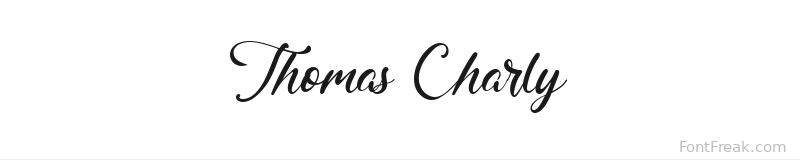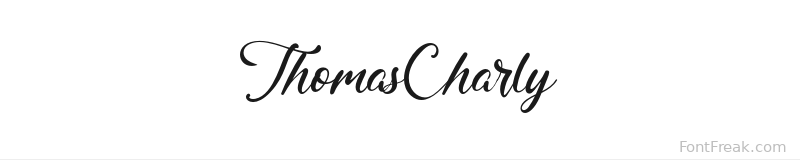
ThomasCharly
Thomas Charly
About ThomasCharly
The ThomasCharly font by Kong Font is a stunning script typeface that exudes elegance and sophistication. Released in 2021, this font showcases delicate, flowing lines that create a sense of movement and grace. The letters are characterized by a medium stroke weight, offering a beautiful balance between boldness and subtlety. The contrast in the curves and straight lines adds a dynamic quality, making each character visually appealing. The spacing is well-considered, ensuring readability while maintaining a stylish flair, perfect for any creative project.
This versatile font finds its best applications in a variety of contexts. It is particularly well-suited for wedding invitations, where its romantic style can enhance the overall aesthetic of the event. Additionally, ThomasCharly can elevate movie posters, adding a touch of drama and sophistication that captures attention. Restaurant menus benefit from this font’s charm, enticing customers with a visually appealing presentation of dishes. It also works wonderfully for branding projects, allowing small business owners to create a memorable visual identity. Content creators will appreciate its ability to convey emotion and style, making it perfect for social media graphics and marketing materials.
Target audiences for the ThomasCharly font include graphic designers looking for a unique typeface to complete their projects, small business owners aiming to create a distinctive brand presence, and content creators who want to add flair to their digital or print materials.
What truly makes the ThomasCharly font stand out is its combination of elegance and versatility. The ability to enhance a wide range of projects while remaining visually striking is a testament to its design quality. For those interested in incorporating this beautiful script into their work, a ThomasCharly font free download is available, providing an excellent opportunity to explore its potential.